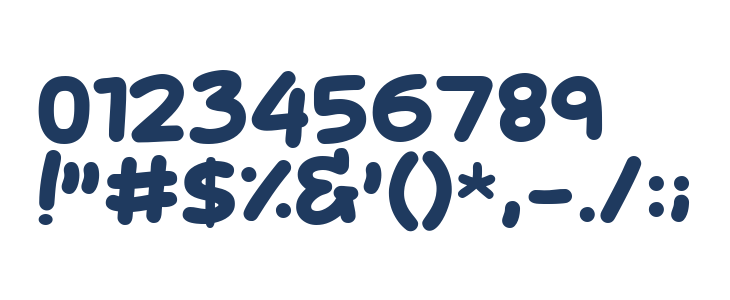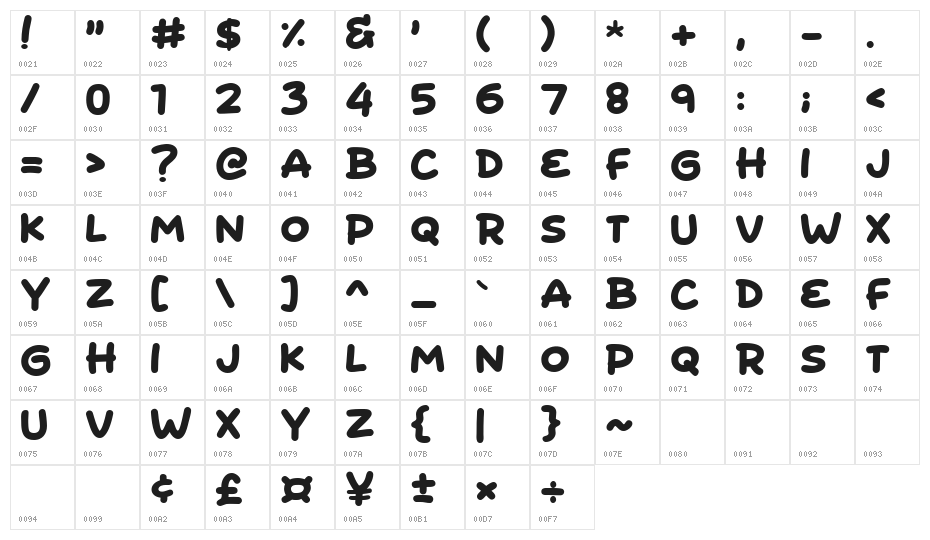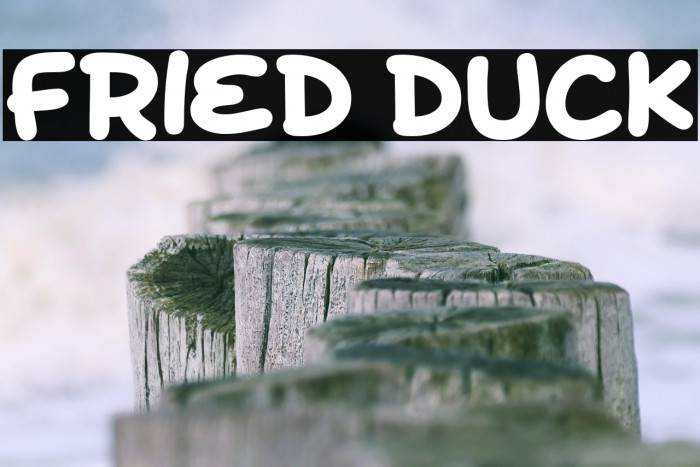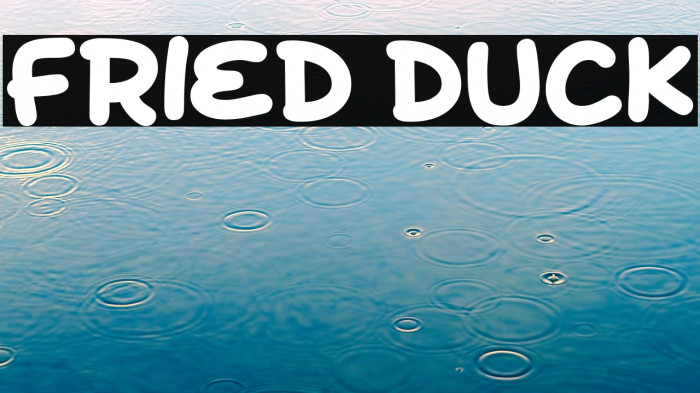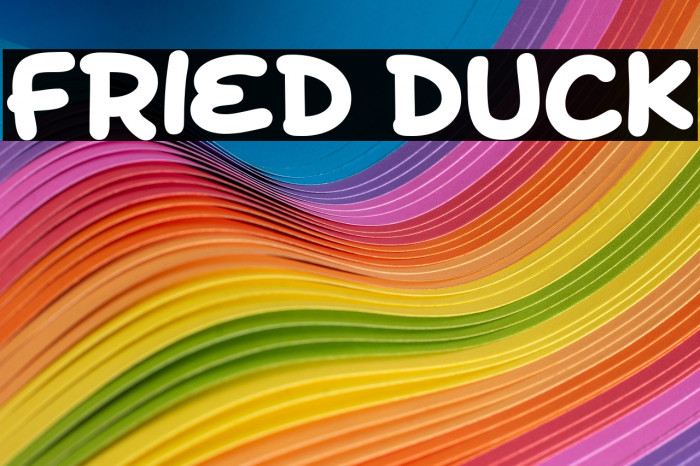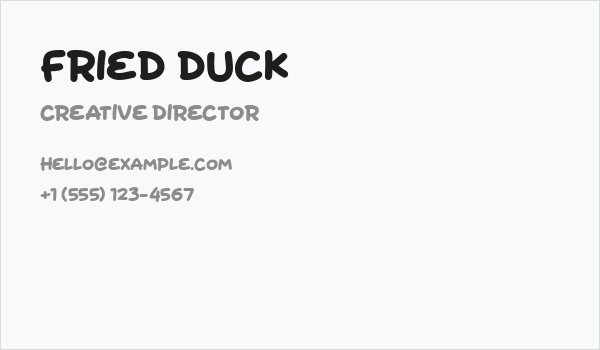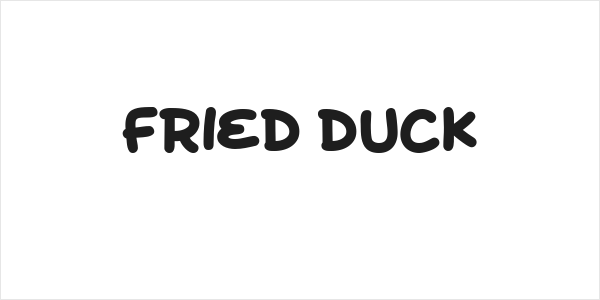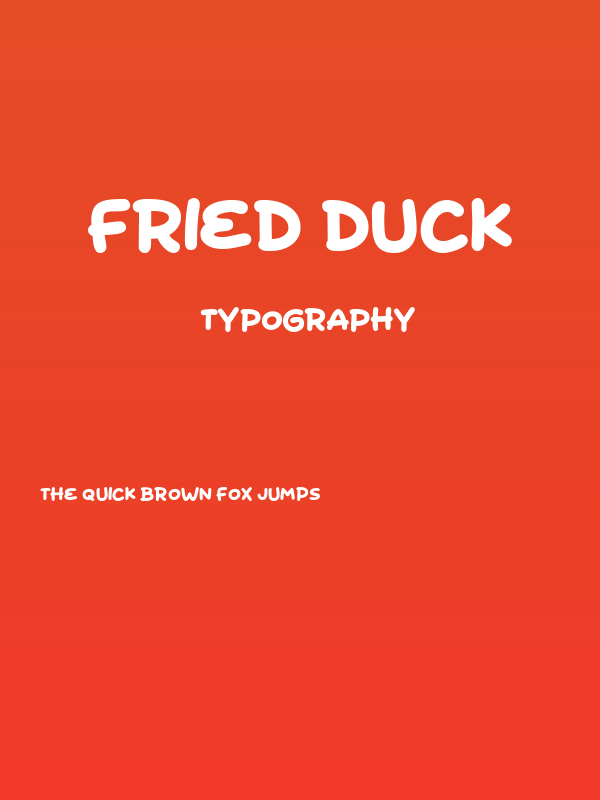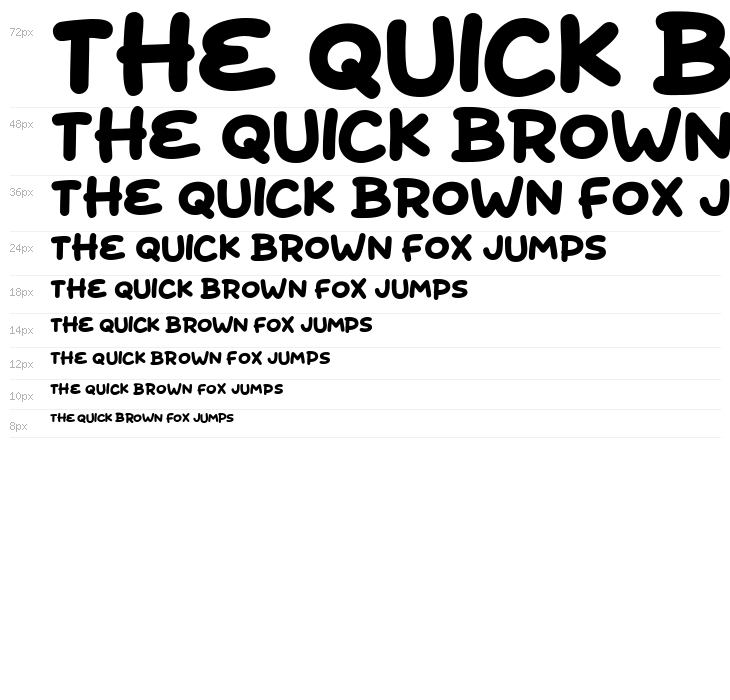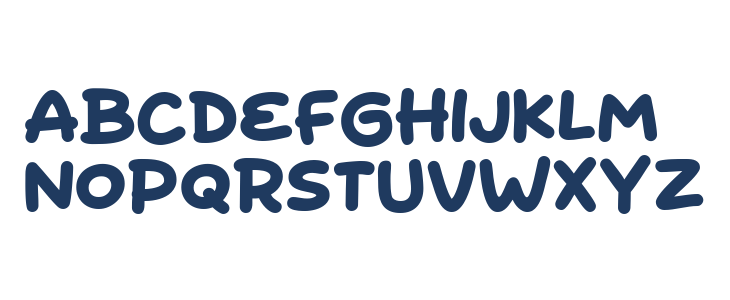
Fried Duck Font
Fried Duck Description
This playful and bold font features rounded, bubbly characters that convey a sense of fun and approachability. The letters are thick and uniform, with a consistent stroke width that gives the font a cohesive look. The rounded edges and slightly irregular shapes add a whimsical touch, making it ideal for projects that aim to be friendly and engaging. The font maintains a consistent baseline, and the characters are well-spaced, ensuring readability while retaining its playful nature. The numerals and special characters follow the same design principles, integrating seamlessly with the alphabet.
| Proposed Projects | Ideal for children's books, playful branding, party invitations, and any project that requires a fun, approachable aesthetic. |